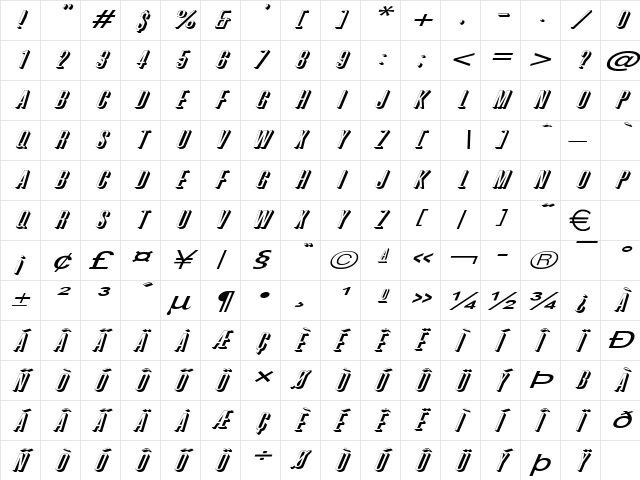
PhoenixExtendedD Italic
Design Context for PhoenixExtendedD Typeface
PhoenixExtendedD is a composed and adaptable typeface that performs quietly and consistently across a wide range of design contexts. The dynamic lean of this cut emphasises speed and emphasis in any layout.
Pro Tip: Use PhoenixExtendedD for emphasis, pull quotes, and subheadings where its slanted energy can add rhythm to the layout.